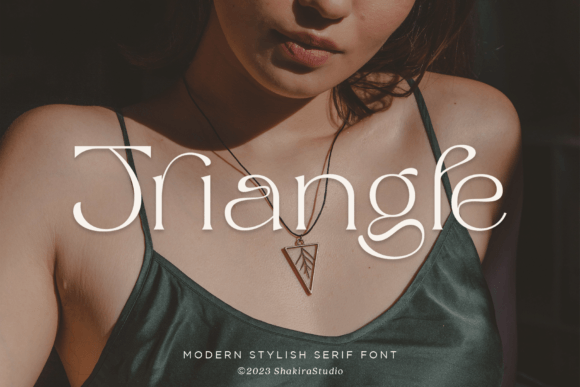
Step into the realm of timeless sophistication with Triangle, a serif font that embodies the spirit of elegance and modernity. Its meticulously crafted letterforms exude a sleek, timeless design, while its refined and minimalistic serifs infuse it with a distinctly modern edge. As a result, each character in this font radiates precision and grace, elevating your designs with an air of confidence and style.
Triangle's versatility extends beyond its aesthetic appeal, making it an indispensable tool for designers across various disciplines. Whether you're working on high-end branding, editorial layouts, luxury packaging, or sleek websites, this font can seamlessly adapt to your project's unique requirements. Its PUA encoding ensures effortless access to a world of amazing glyphs and ligatures, further enhancing its adaptability and creative potential.
Let Triangle be your gateway to design excellence. Its sophisticated charm will captivate your audience, leaving an unforgettable impression. From the moment they encounter your designs, they'll be drawn into a world of luxury and refinement. Allow Triangle to elevate your projects to new heights of elegance and let your creativity soar.
With Triangle, you'll discover a font that exceeds expectations, a font that embodies the essence of modern style and timeless beauty. As you explore its endless possibilities, you'll realize that Triangle is not just a font; it's an investment in design excellence that will pay dividends for years to come.
Embrace Triangle, embrace sophistication, and embrace a world of endless design possibilities.